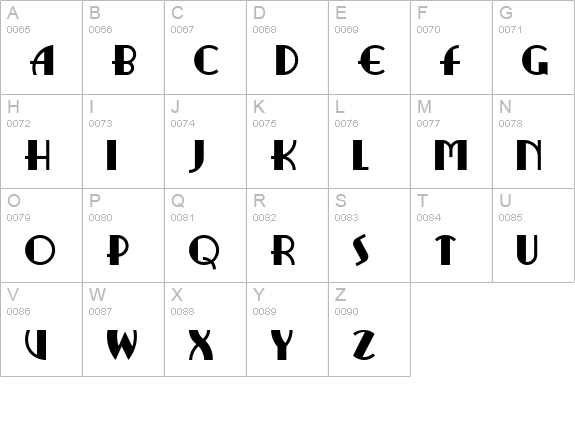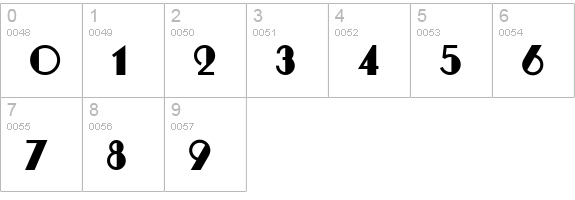
RitzyRemix Font Details
Introducing RitzyRemix font, a stylish and modern typeface that is sure to elevate your design projects to new heights. With its sleek lines and elegant curves, RitzyRemix exudes sophistication and charm. This versatile font is perfect for a wide range of applications, from branding and marketing materials to invitations and social media graphics. What sets RitzyRemix apart is not only its striking appearance but also the fact that it is available for free! That's right, you can download this premium font at no cost from FontsMarket.com. Don't miss out on the opportunity to add RitzyRemix to your font collection and bring a touch of luxury to your designs. Download now and let your creativity shine with RitzyRemix font.